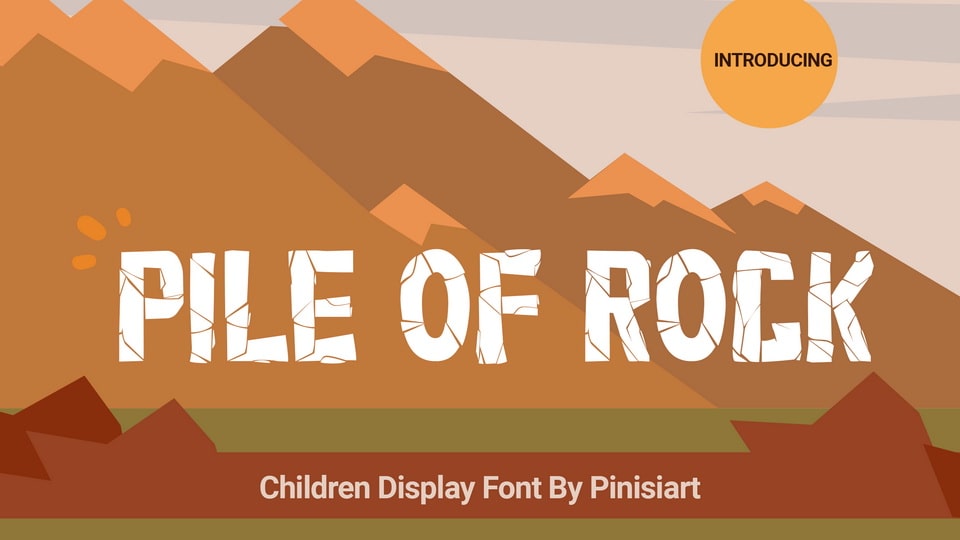
Download Pile of Rock font, a children display typeface. Suit perfectly for adventure themes books market, online games, stationary, school supplies font, poster, birthday invitation and so on.